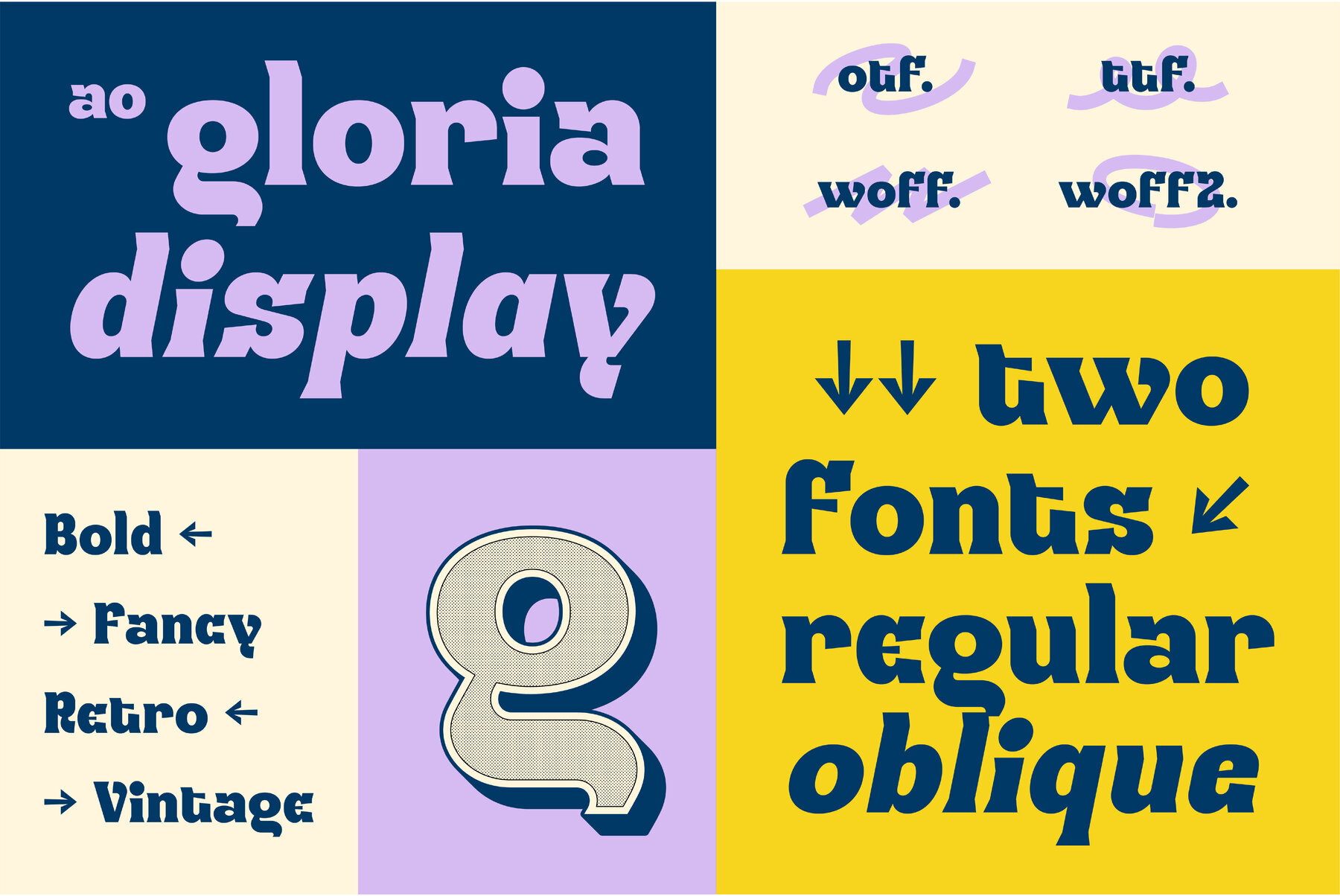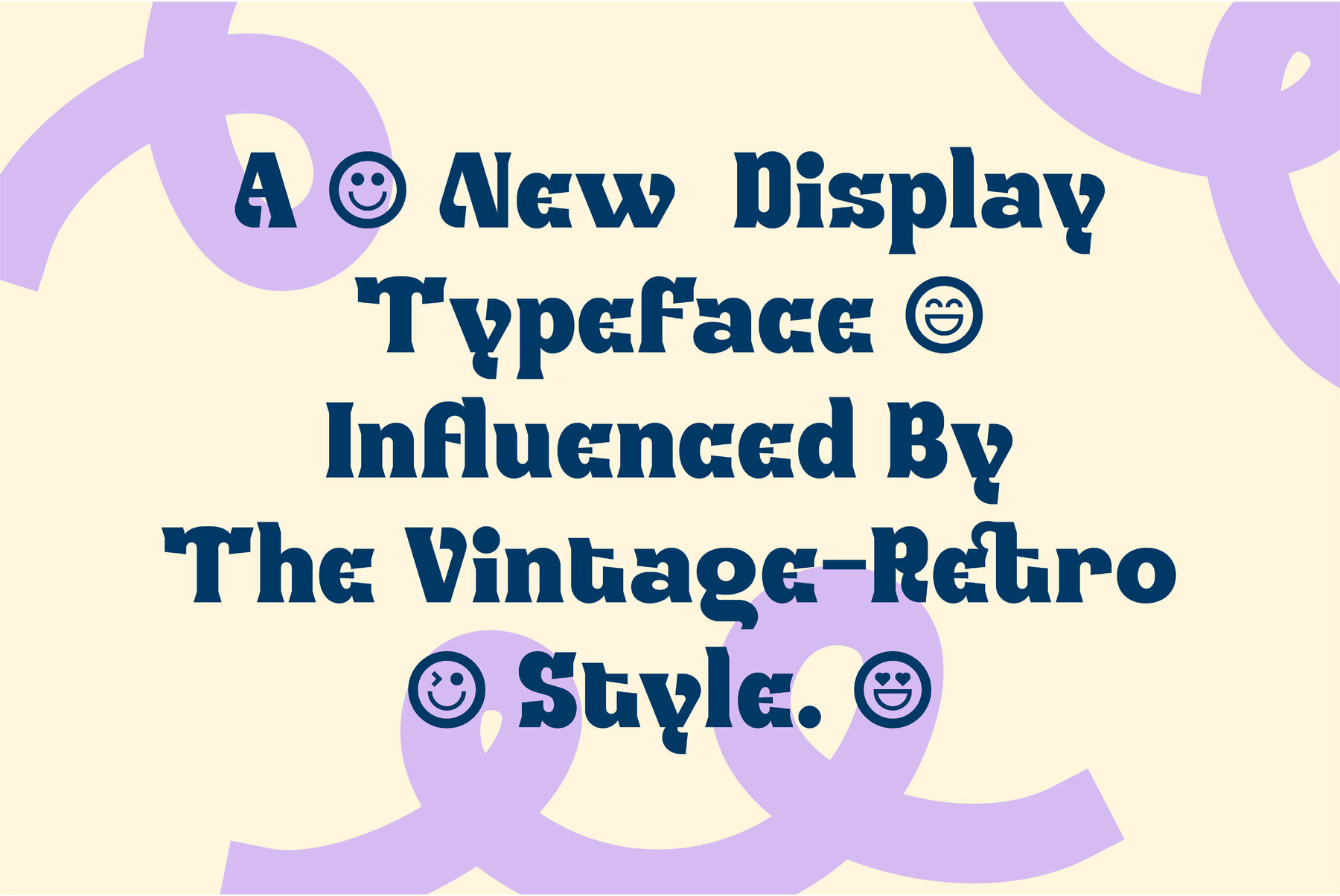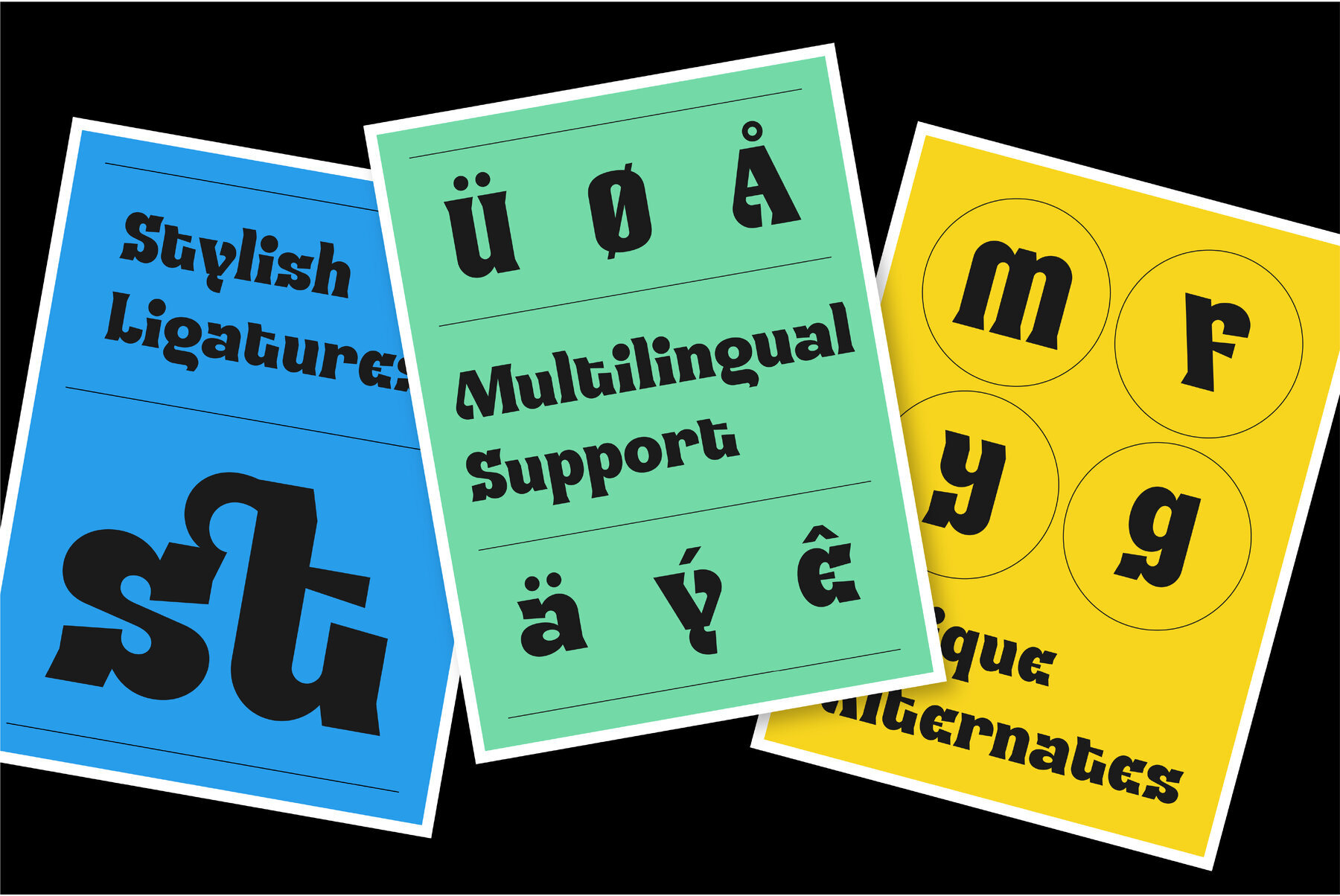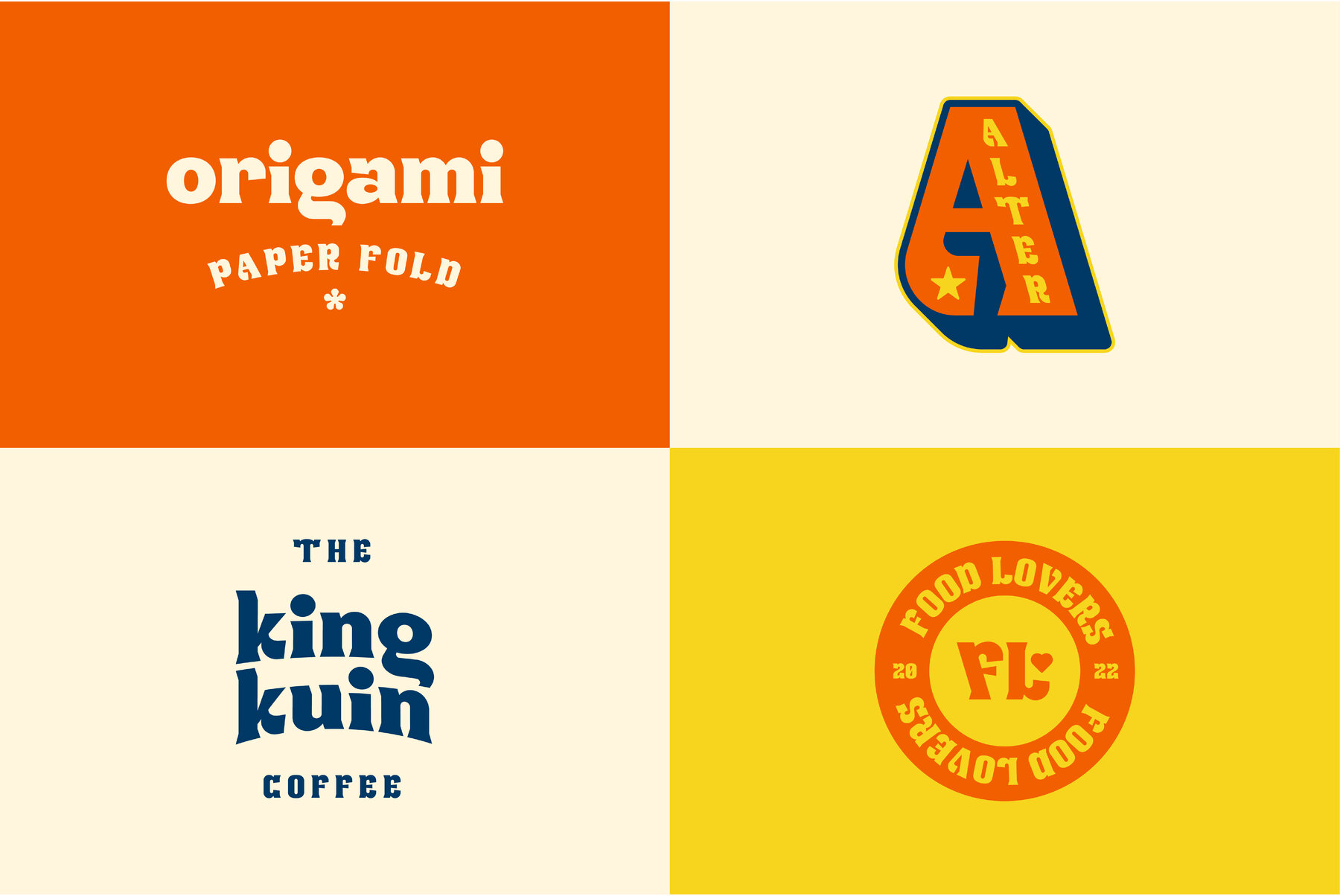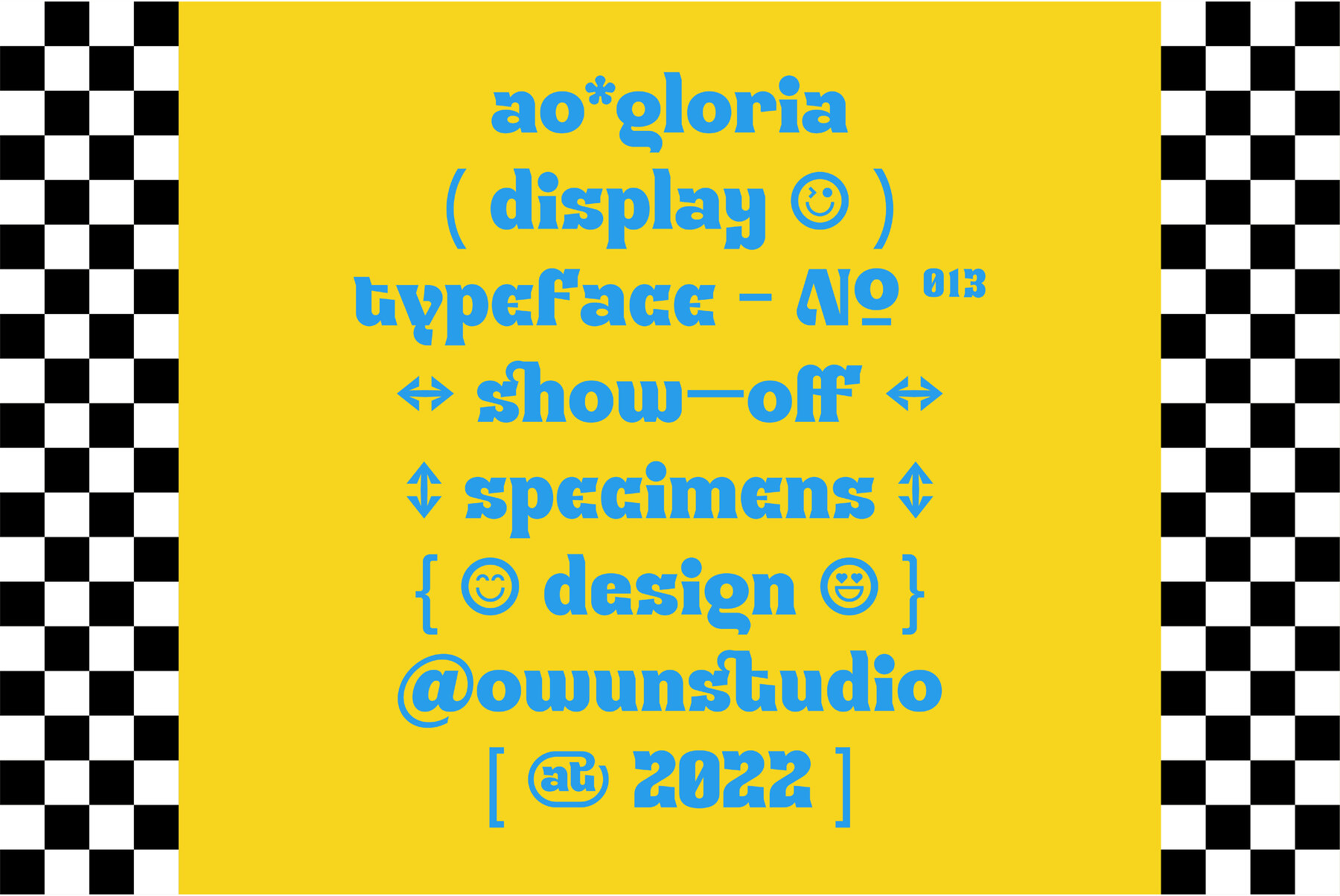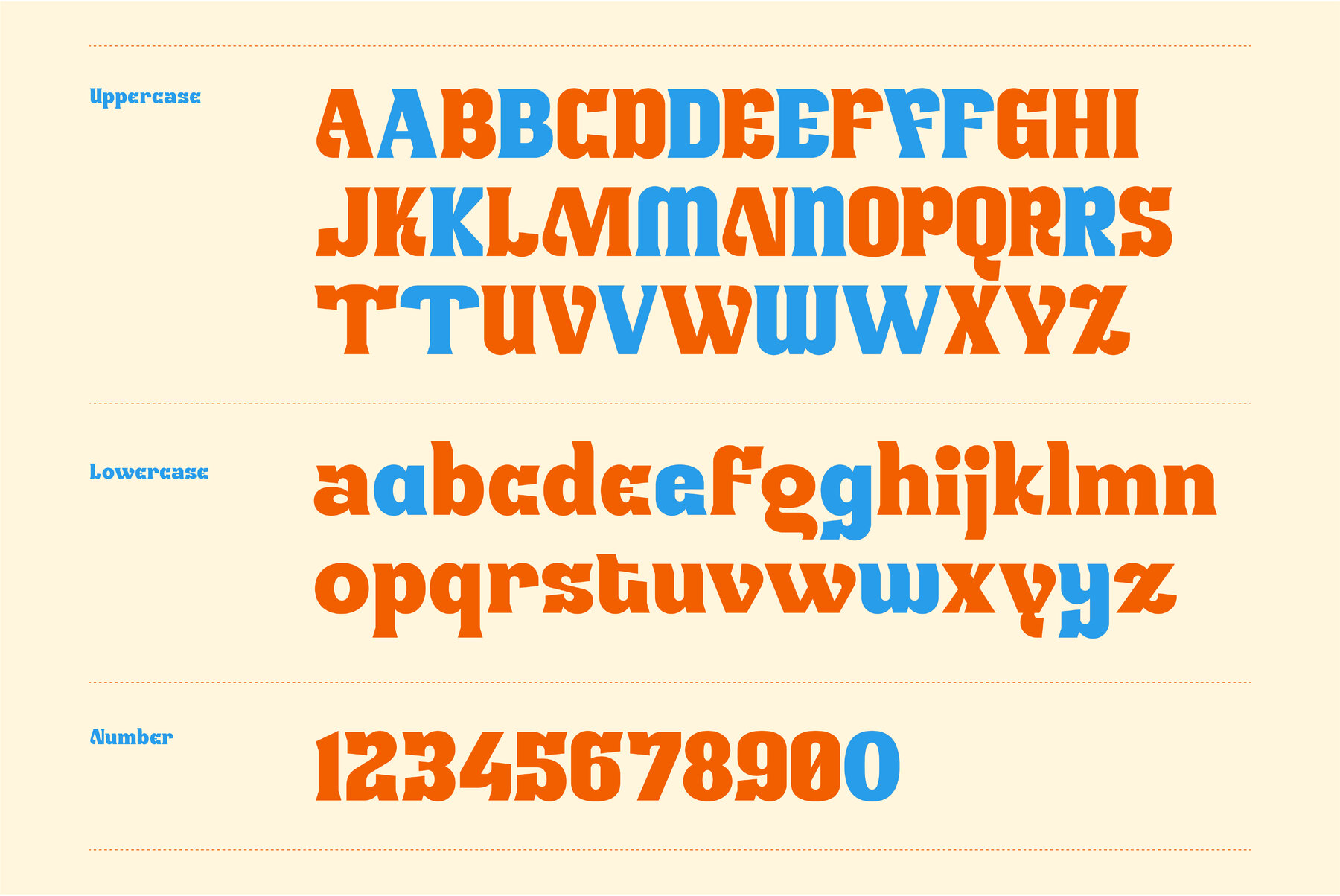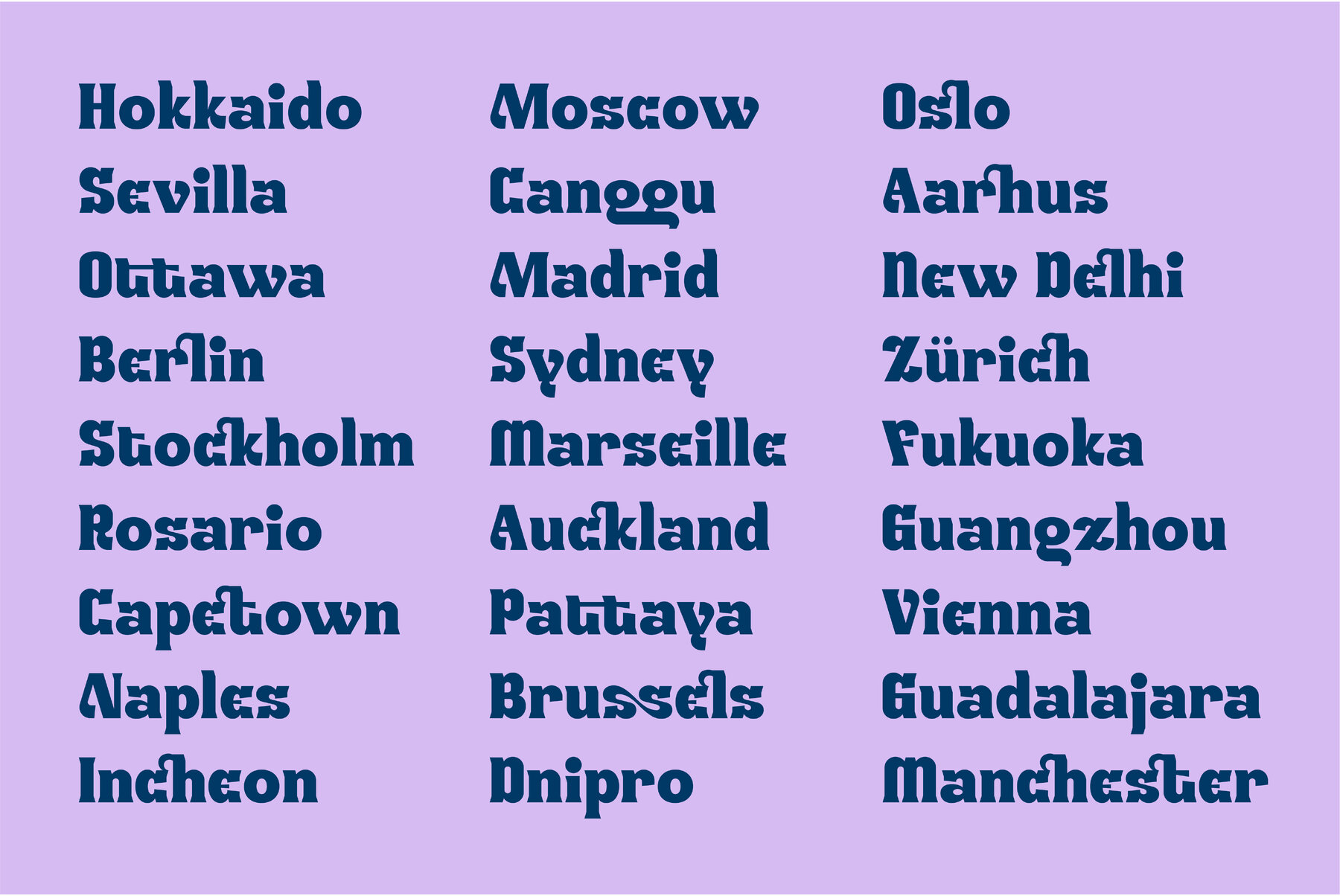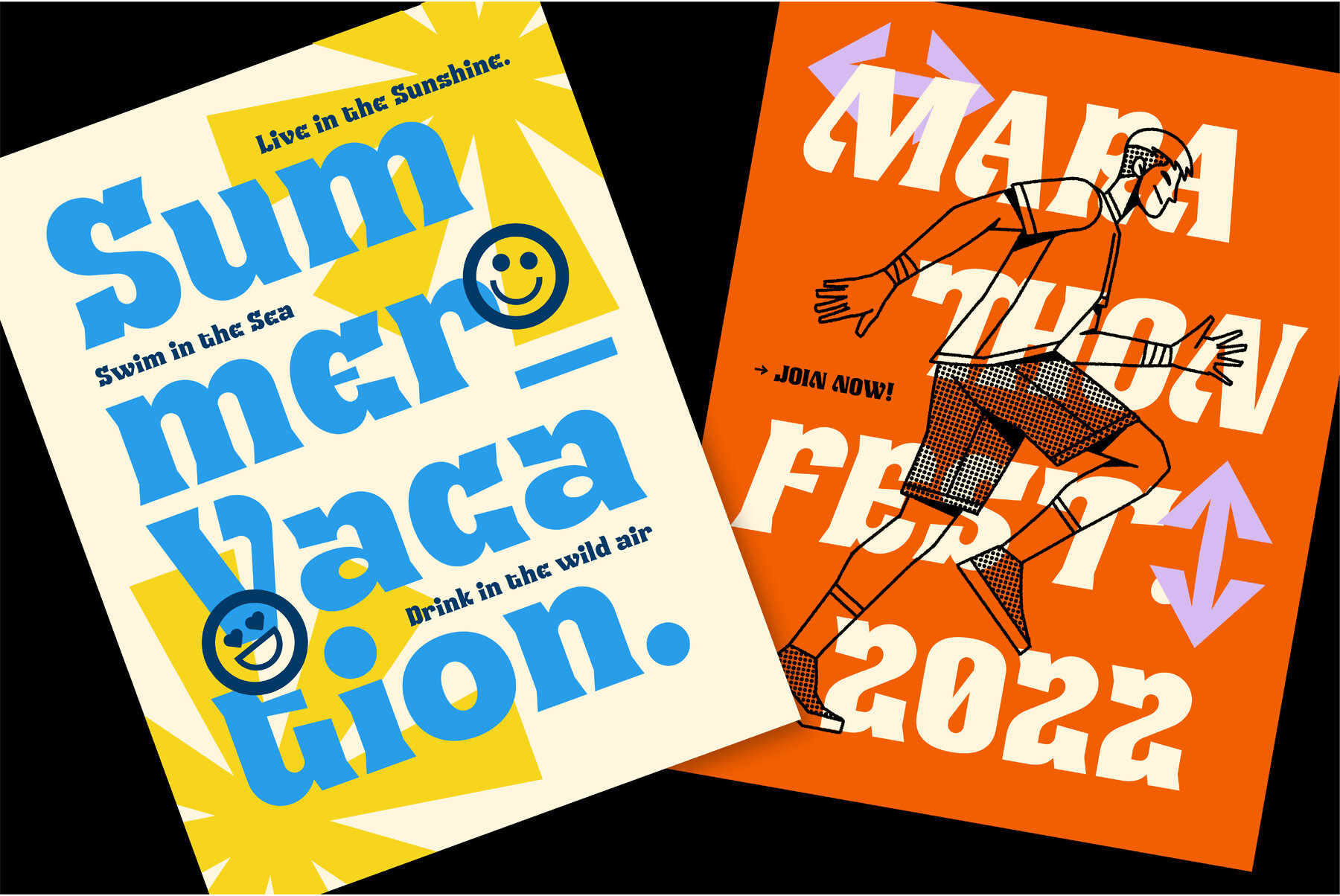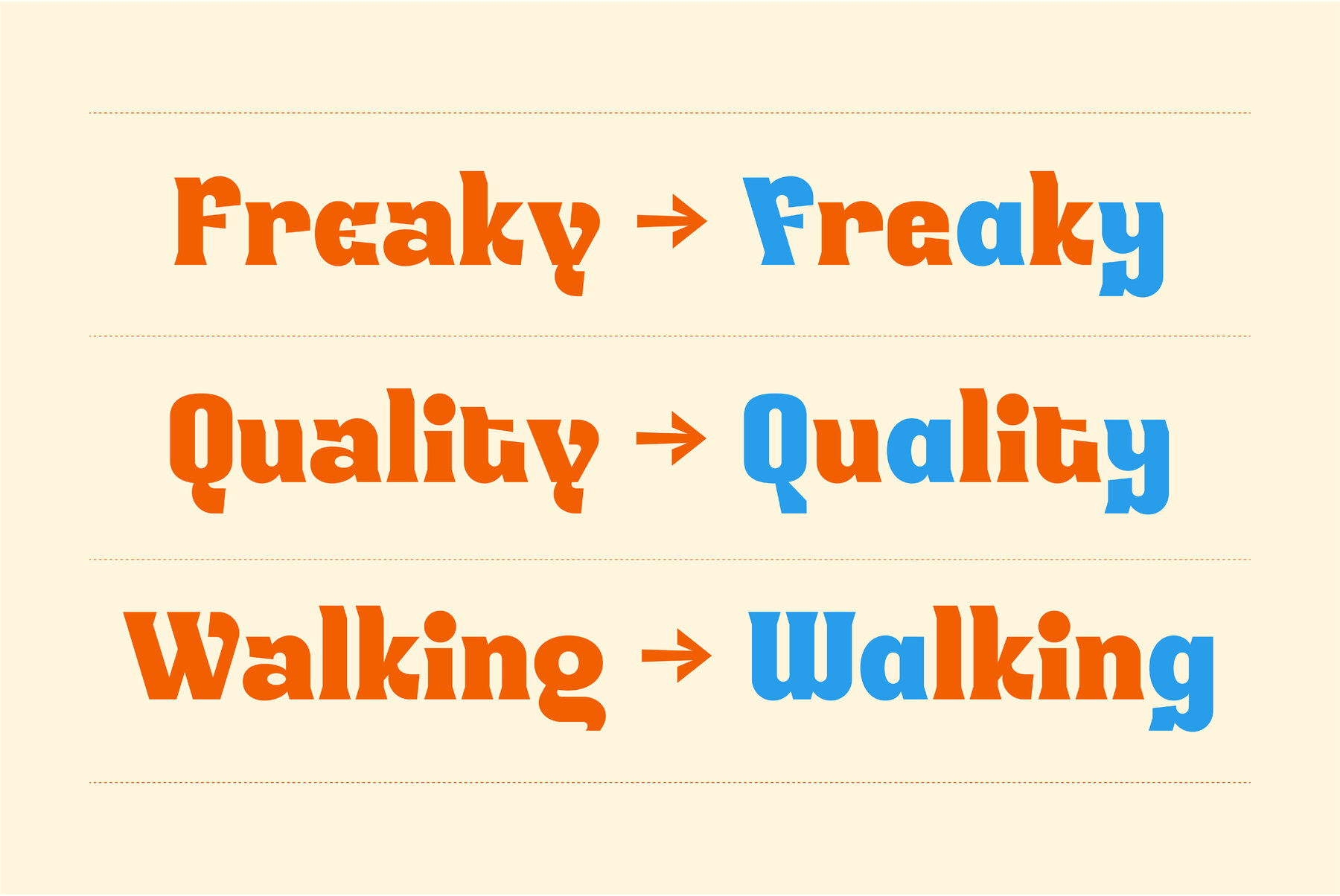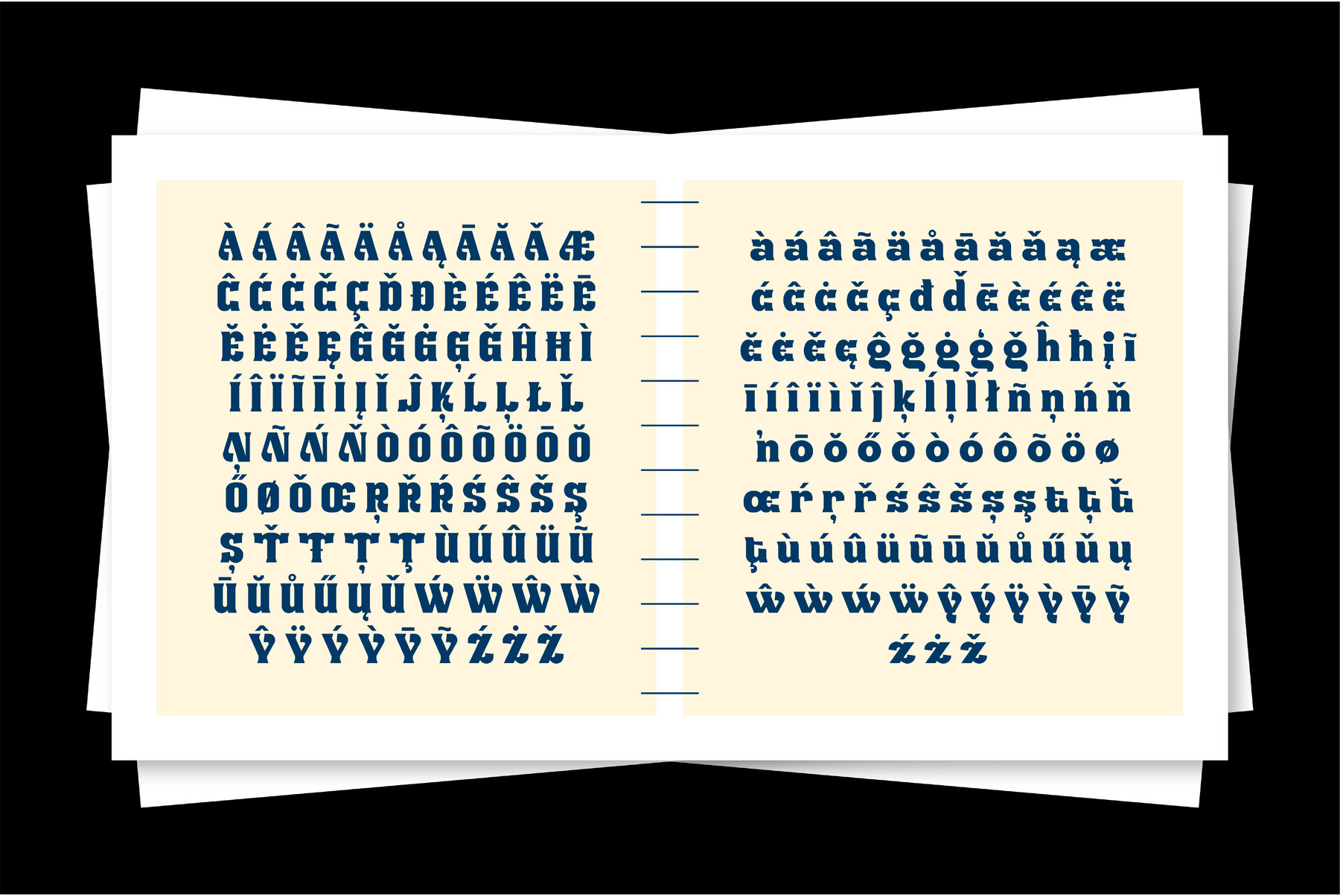
AO Gloria Font
AO Gloria Regular
AO Gloria Oblique
The adventurous, colorful typeface AO Gloria is perfect for headlines and large prints. Built with a heavy structure that can make an impactful impression on viewers, this bold font also has some added features like stylistic ligatures to spice up your designs even more!